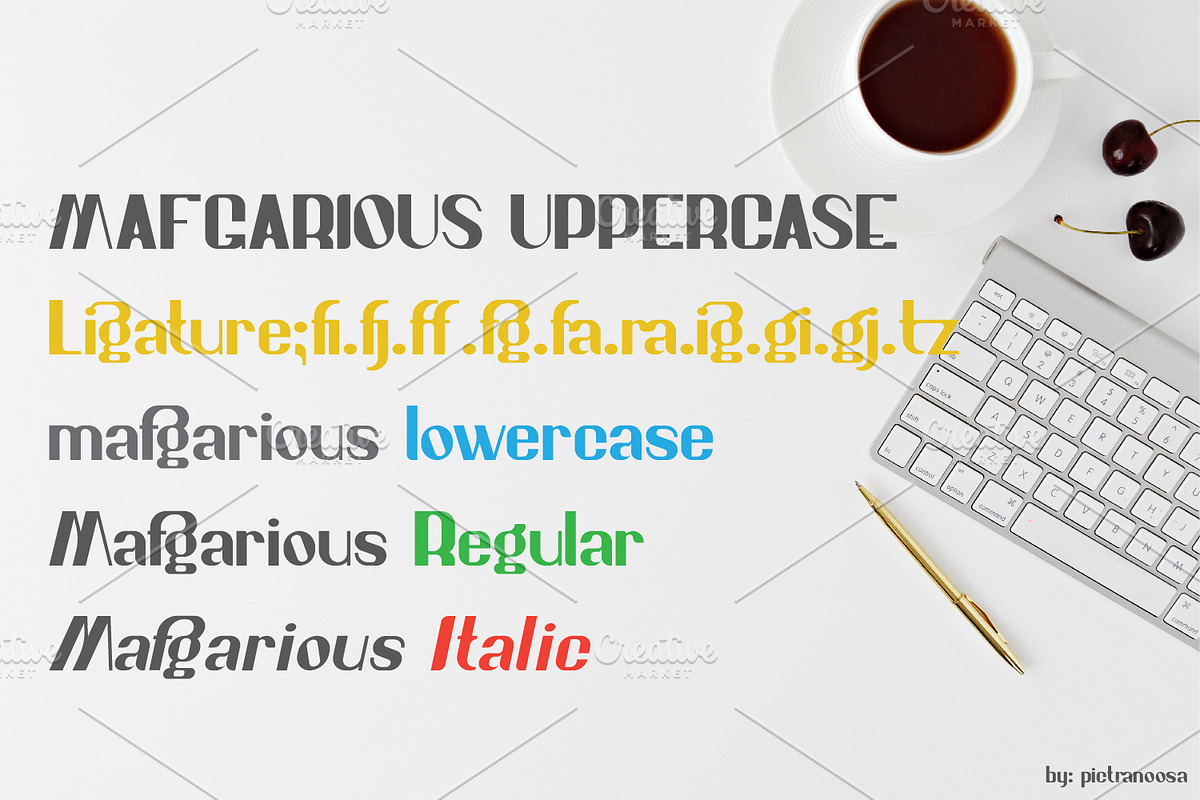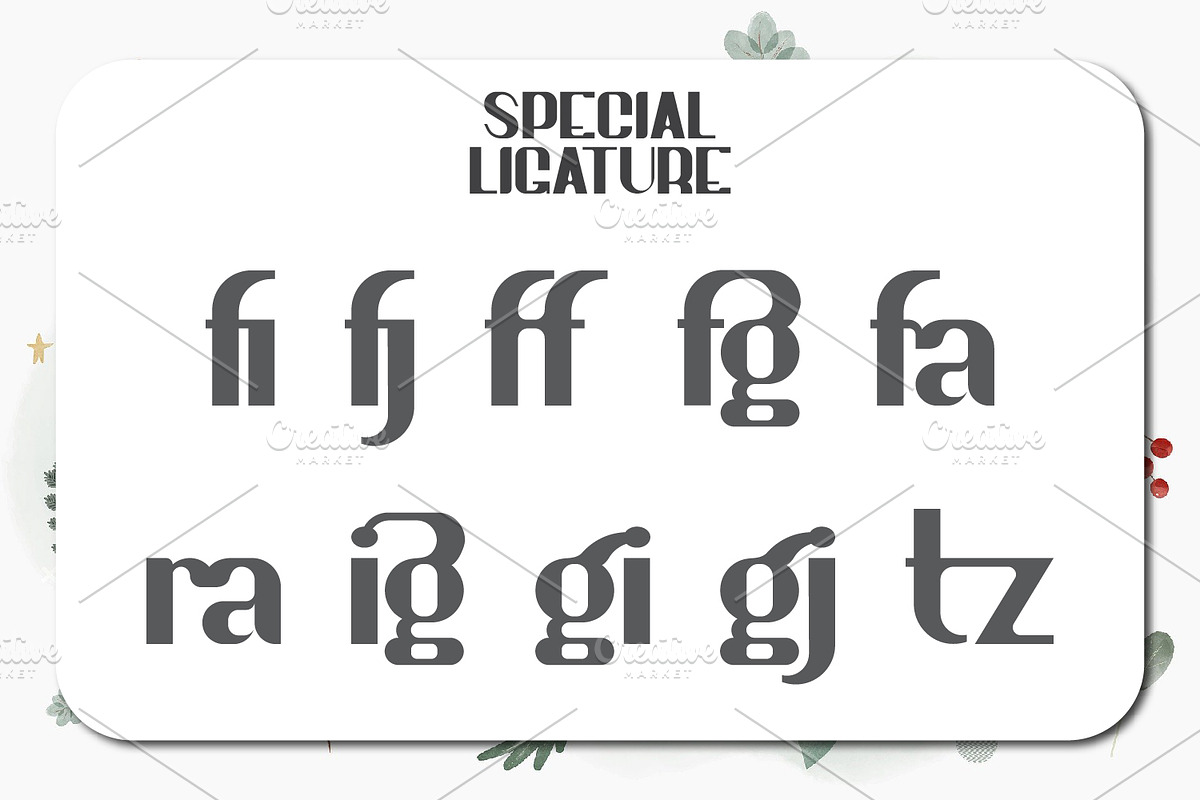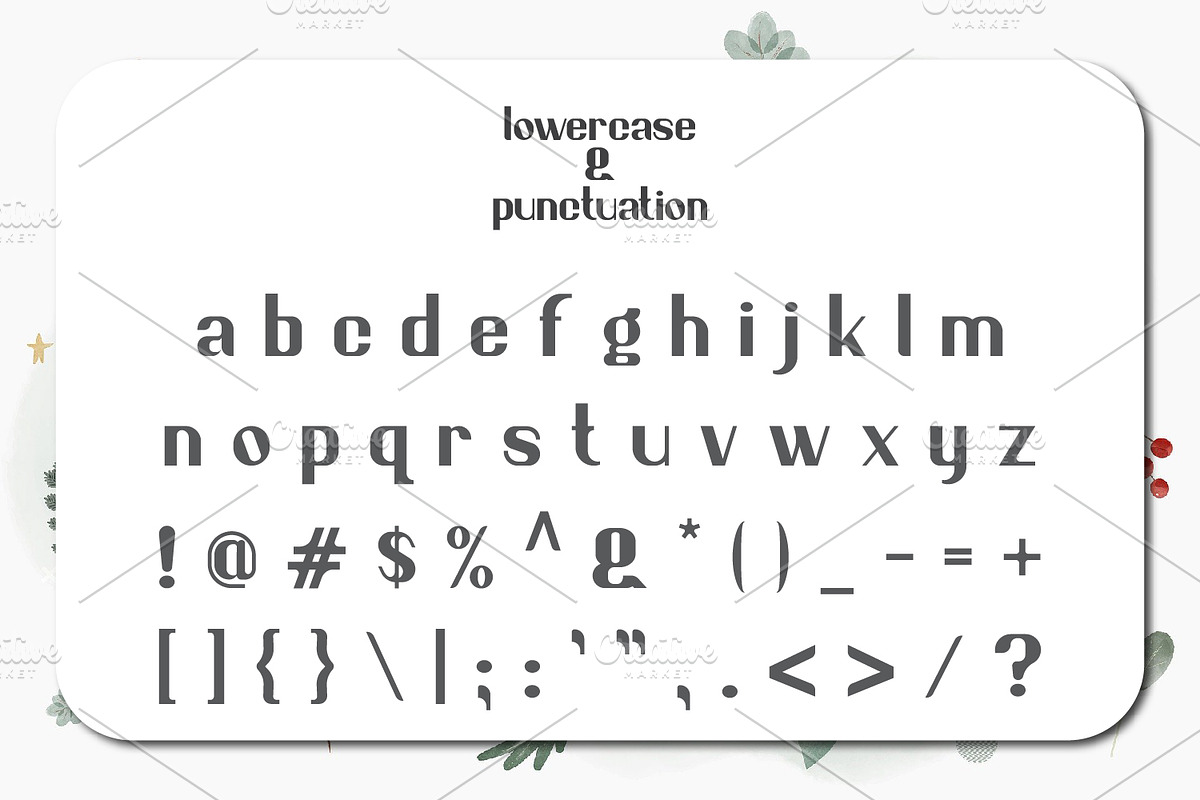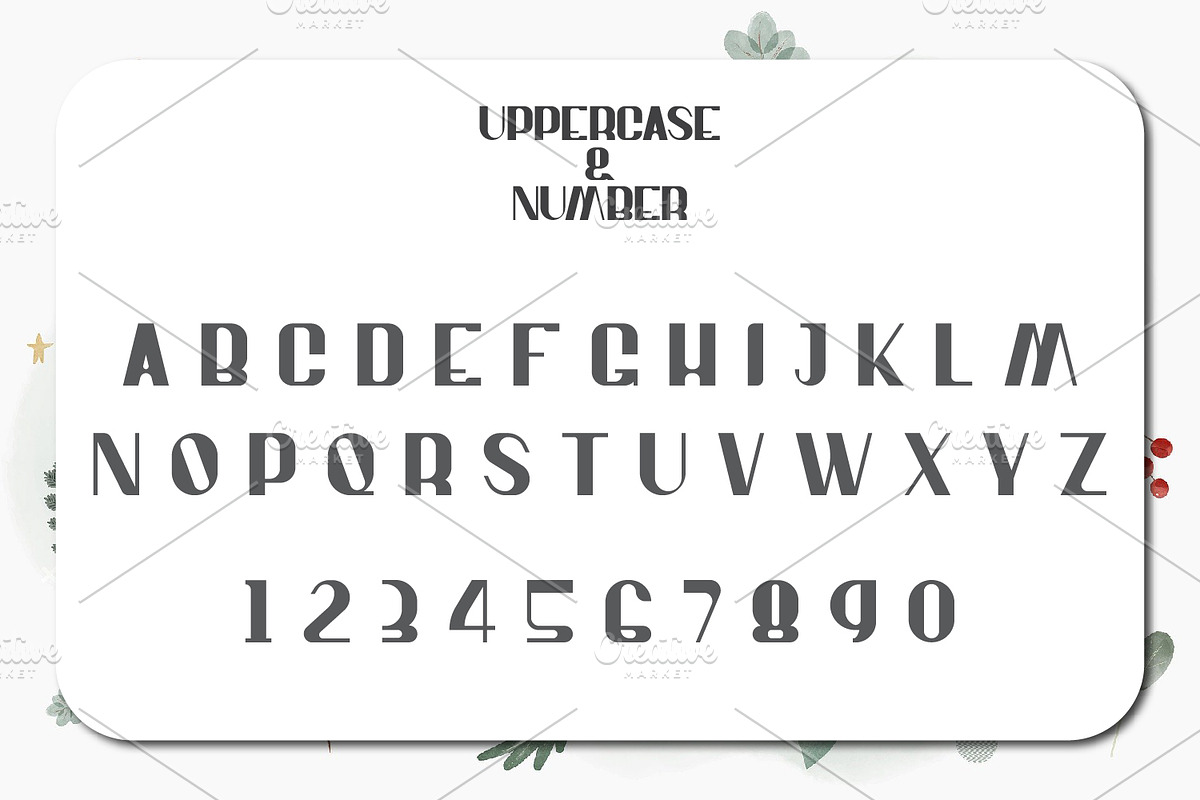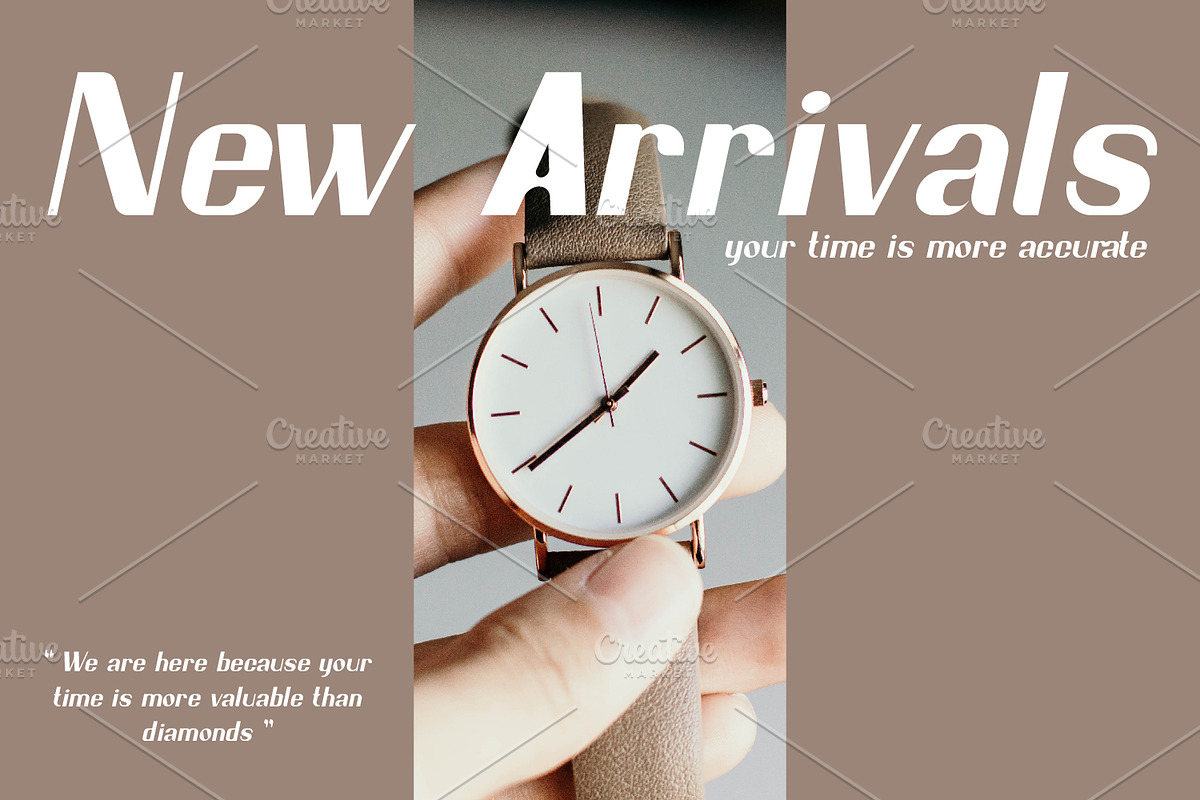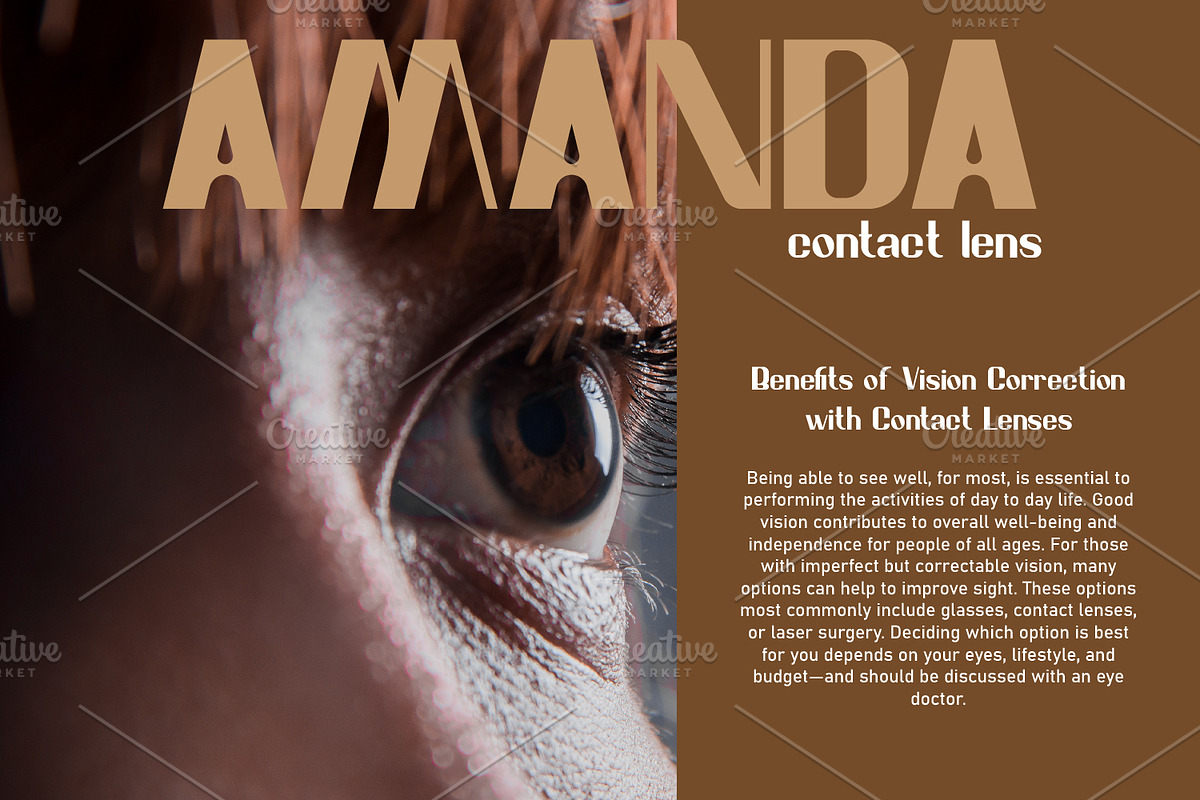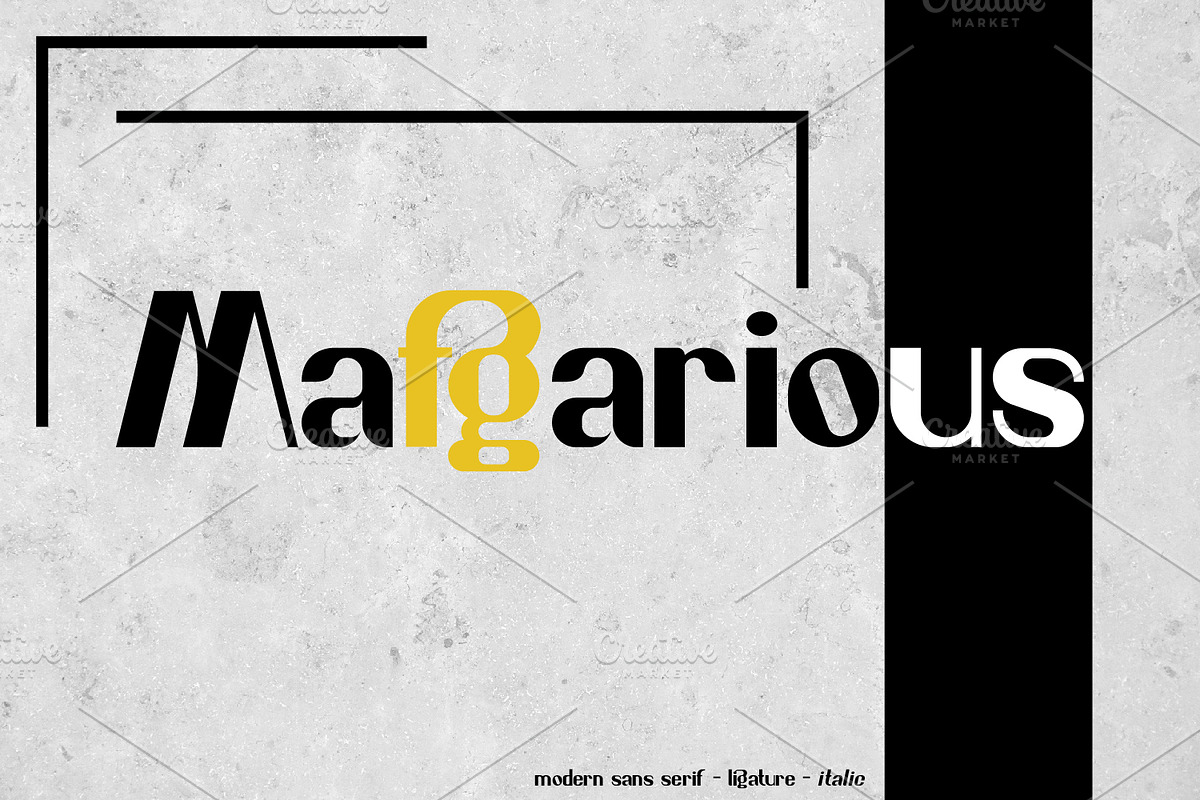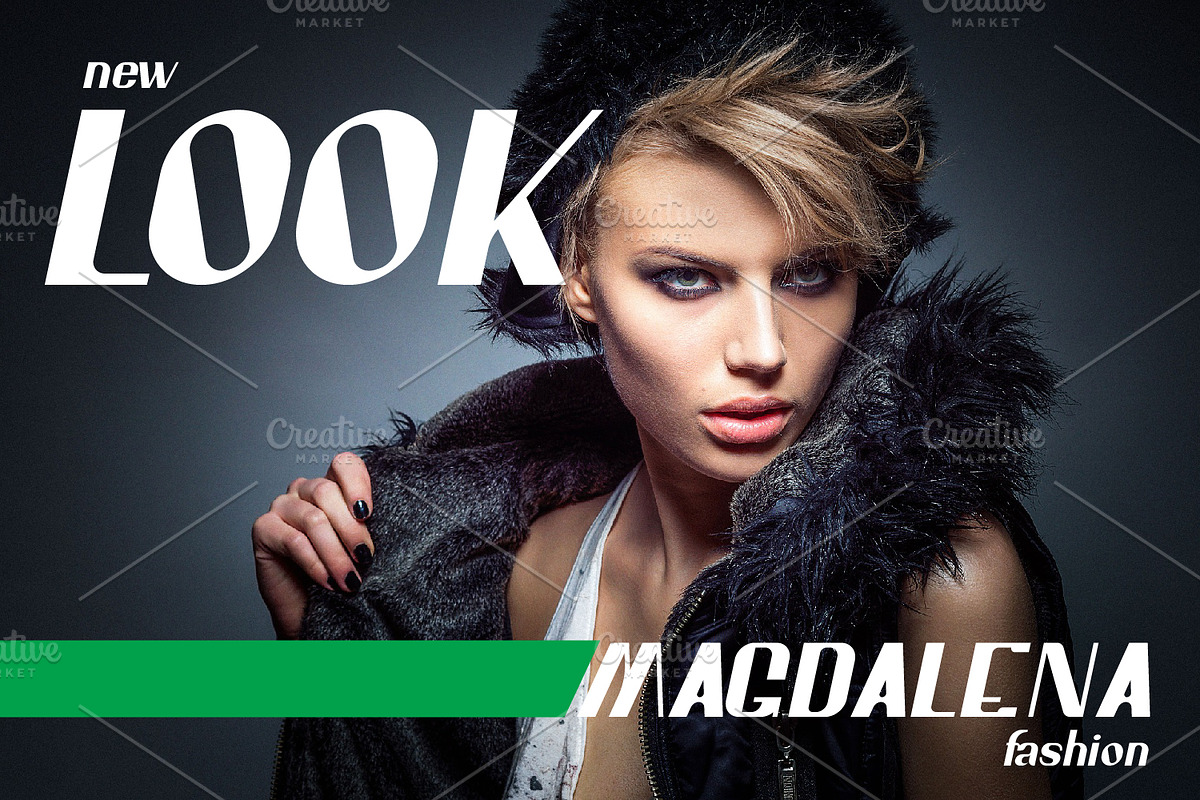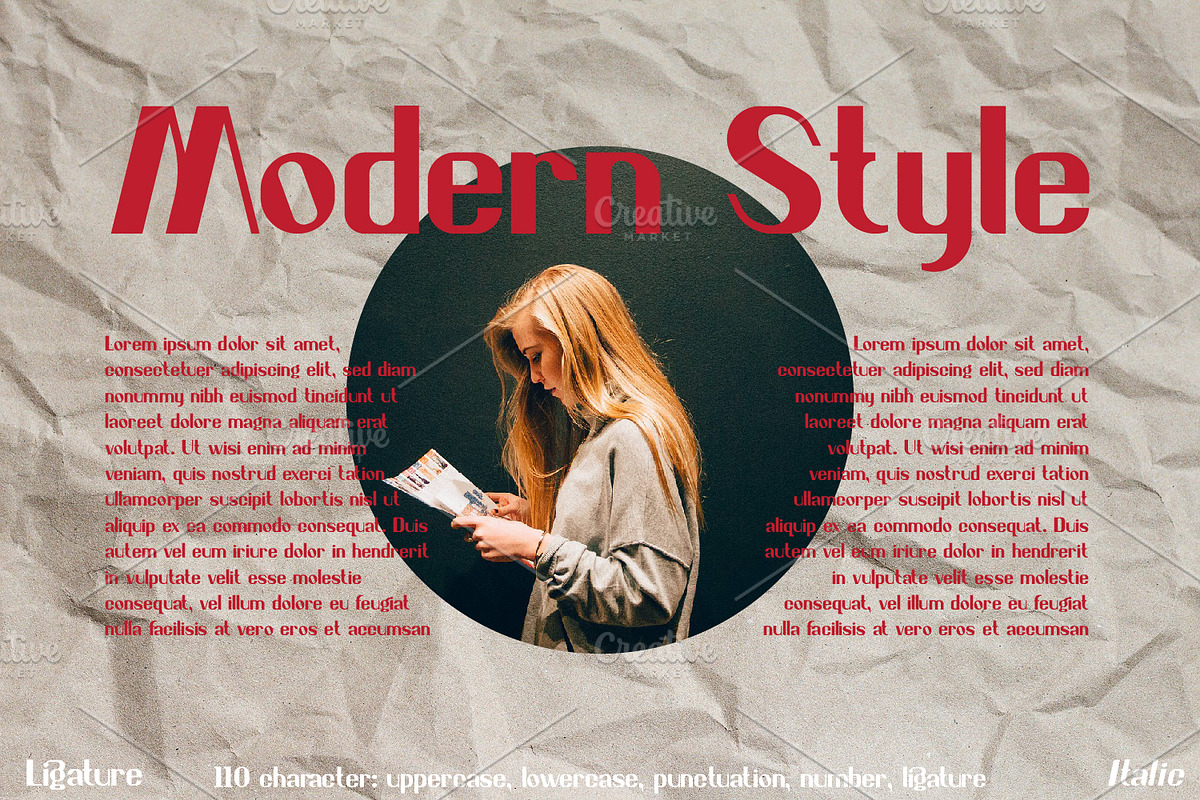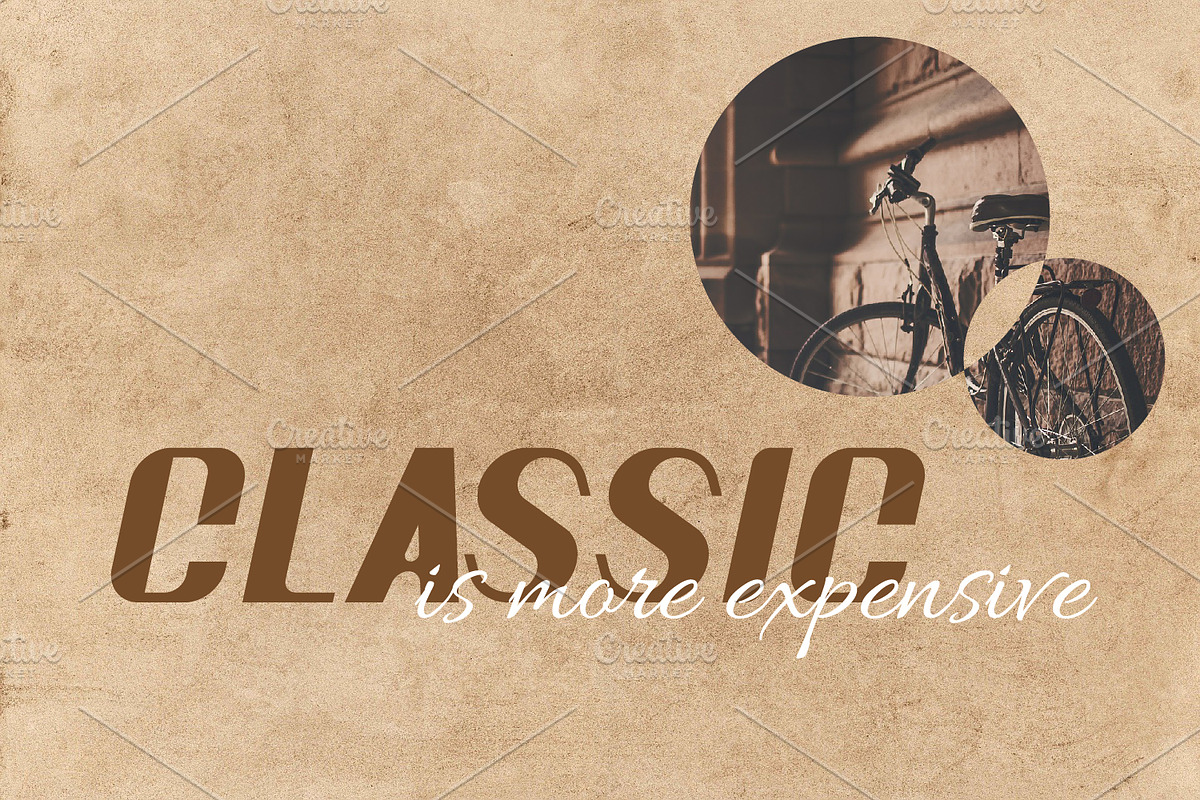
Mafgarious sans serif
Introducing a font called mafgarious from the sans serif group. This font has a solid structure and is pointed at some of the corners for a bold and optimistic look. With a design like this mafgarious can be used as the title of an article or magazine cover. But it is no less good if it is used as the body of an article or review because the design is sharp and has a clear shape, so the level of readability is clear. Mafgarious will make your designs stand out and be unique.